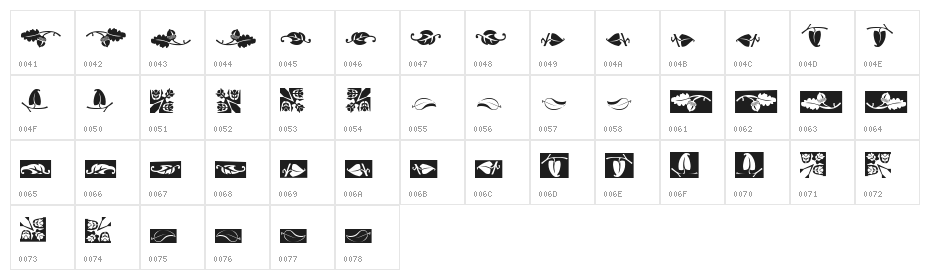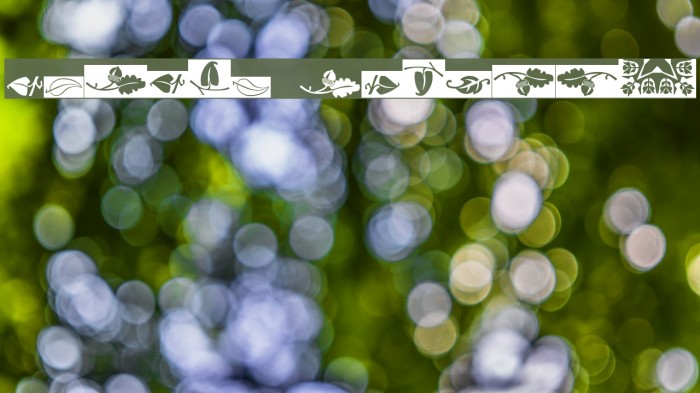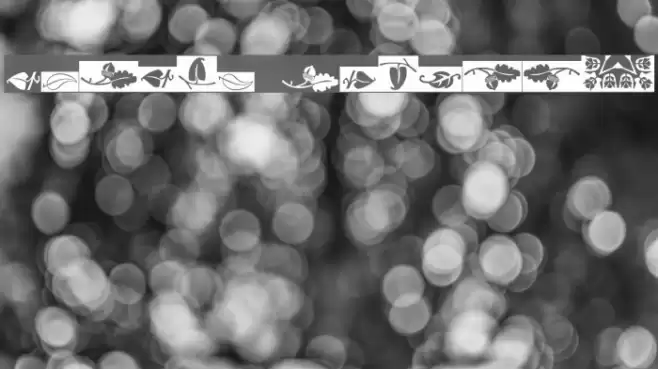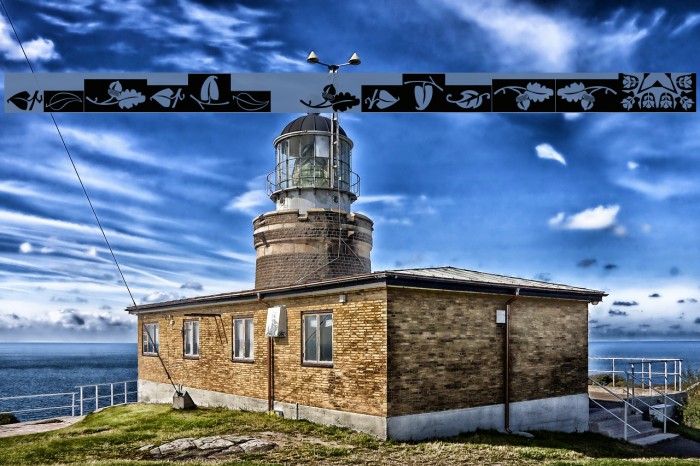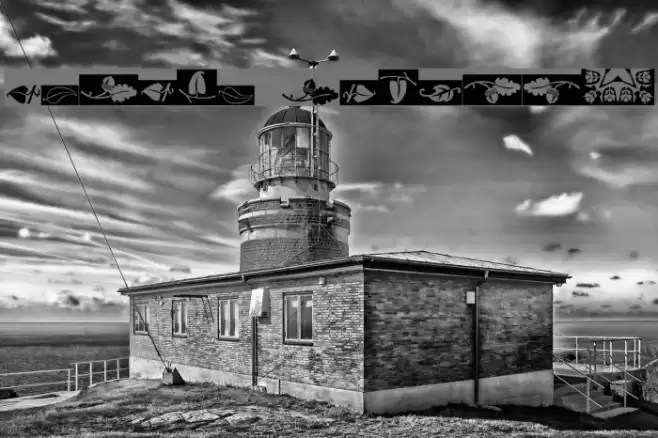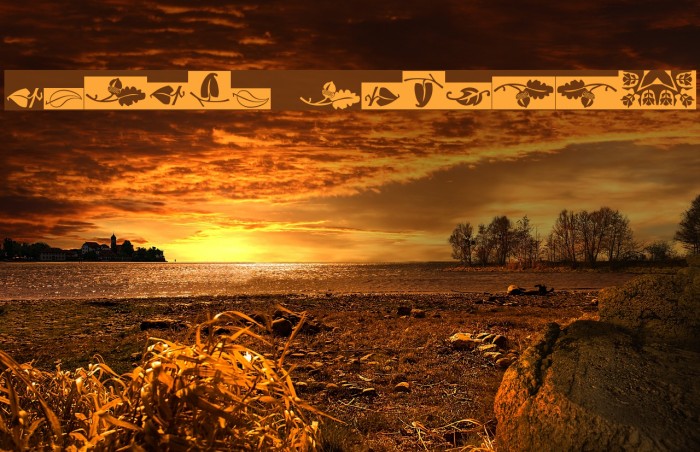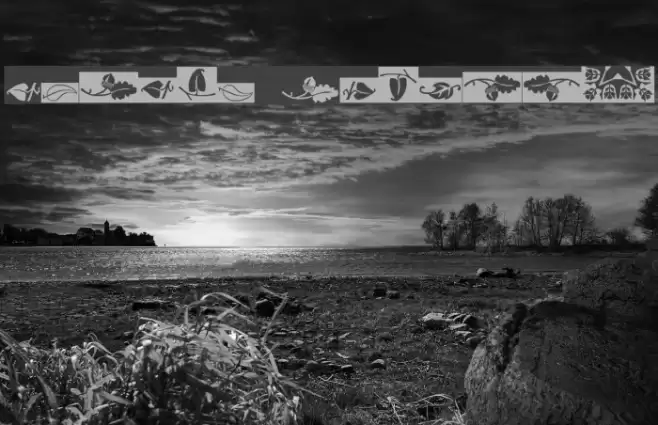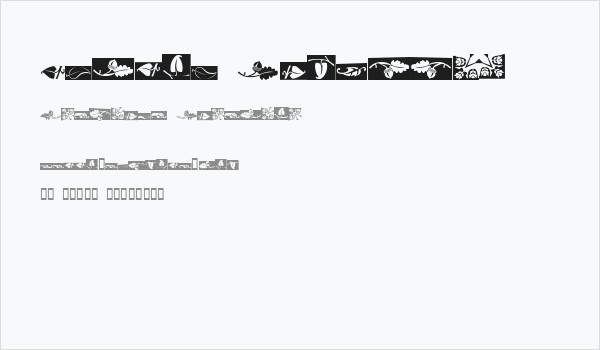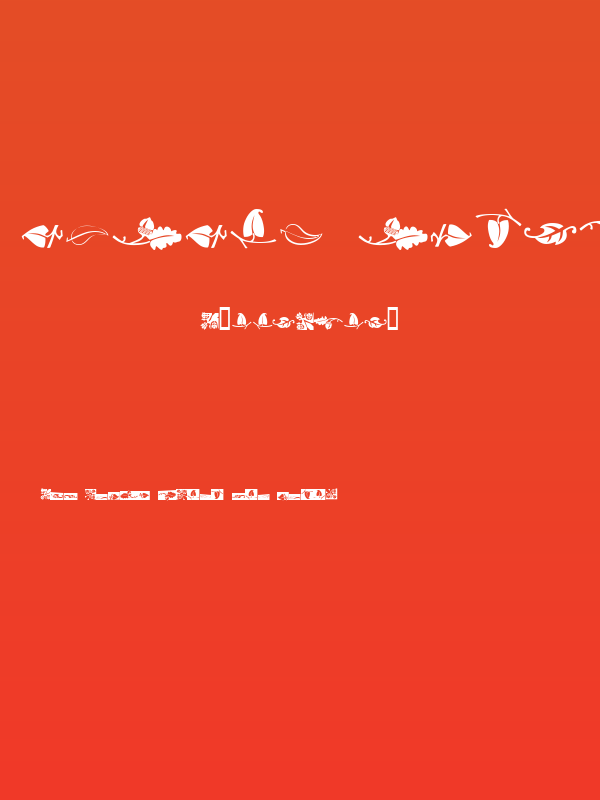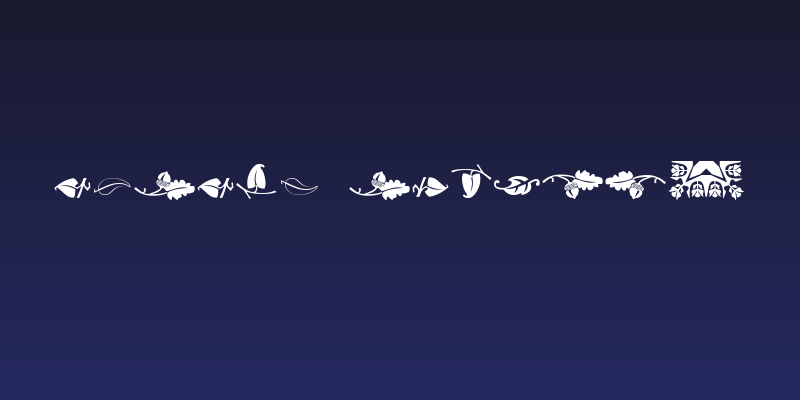
Ludlow Dingbats Font
Ludlow Dingbats Description
This collection features a series of decorative elements and borders, showcasing intricate floral and leaf motifs. The designs are highly ornamental, with a focus on natural themes such as vines, leaves, and flowers. Each element is crafted with attention to detail, providing a vintage and elegant aesthetic. The patterns are versatile, suitable for creating borders or embellishments in various design projects. The overall style is reminiscent of classic decorative art, making it ideal for adding a touch of sophistication and charm to any visual composition.
| Use Case | Decorative elements, Borders, Embellishments |
| Proposed Projects | Ideal for wedding invitations, vintage-themed posters, decorative borders in books, and elegant stationery design. |